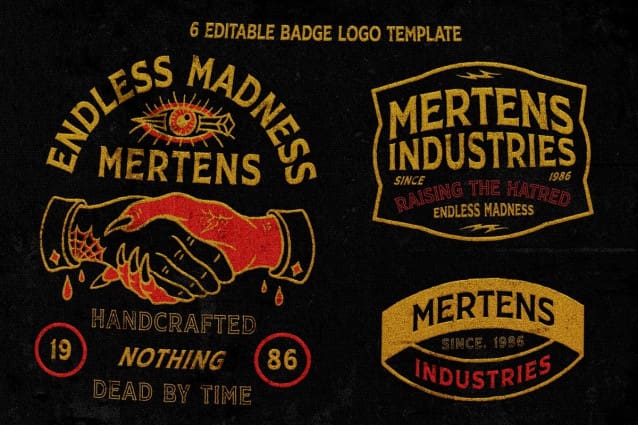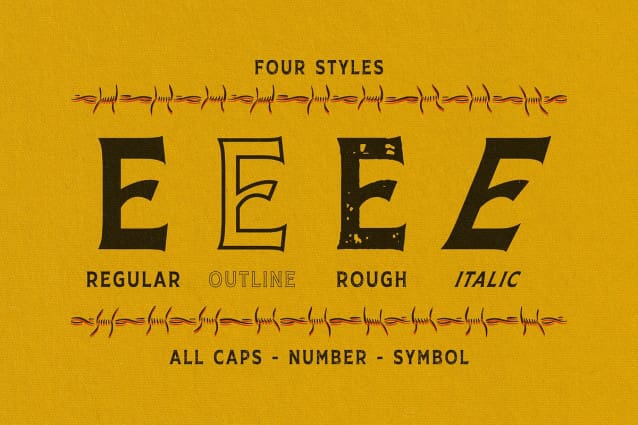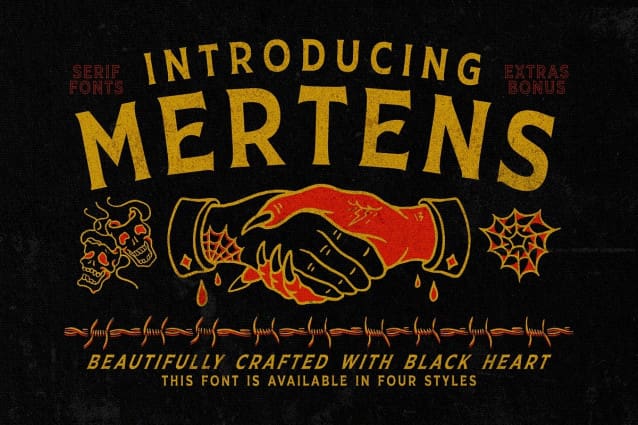
Mertens Font
Mertens Font, This font was inspired by the vintage t-hsirt design on my old archive and it’s come with traditional tattoo that i love to combine and it’s great!